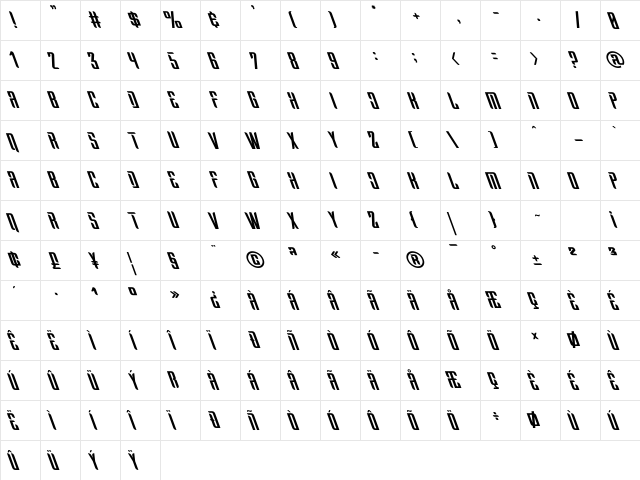
Nevla Oblique Regular
Design Context for Nevla Oblique Typeface
Nevla Oblique is a composed and adaptable typeface that performs quietly and consistently across a wide range of design contexts. The dynamic lean of this cut emphasises speed and emphasis in any layout.
Pro Tip: Try Nevla Oblique for annotation and caption copy alongside an upright companion — the contrast in angle creates a dynamic but ordered typographic system.